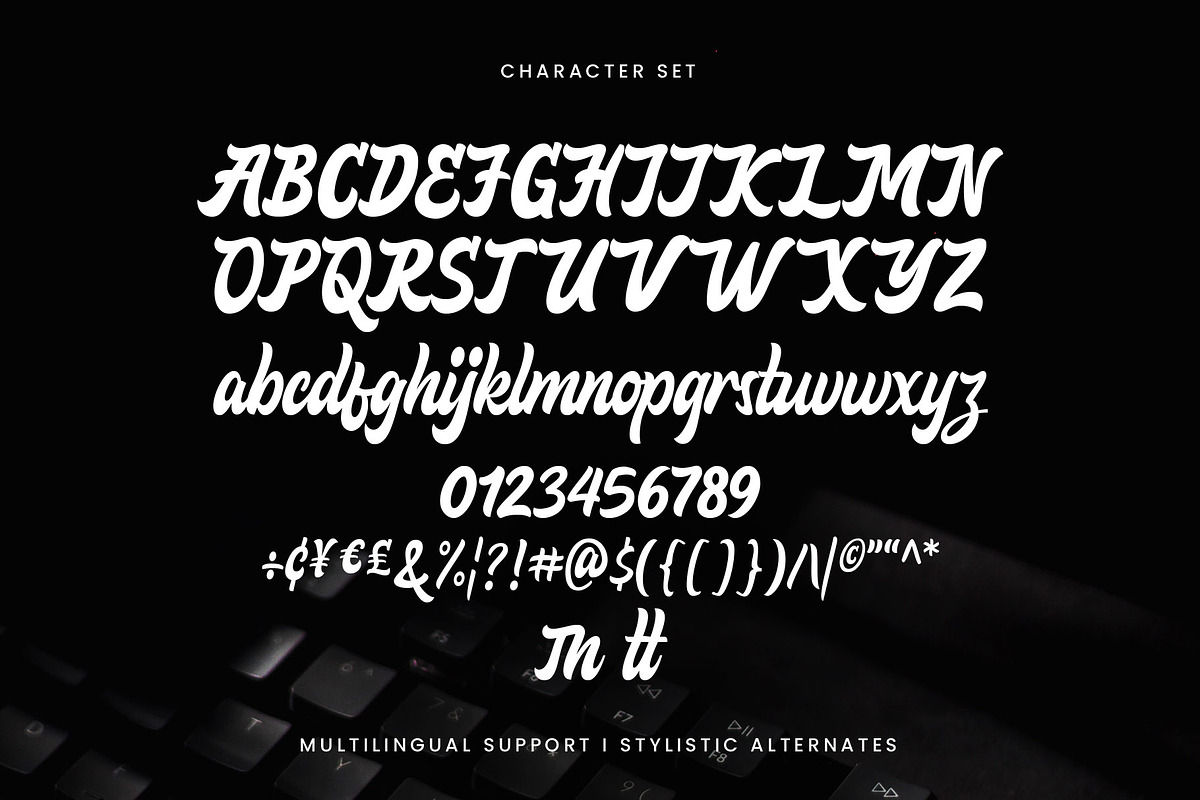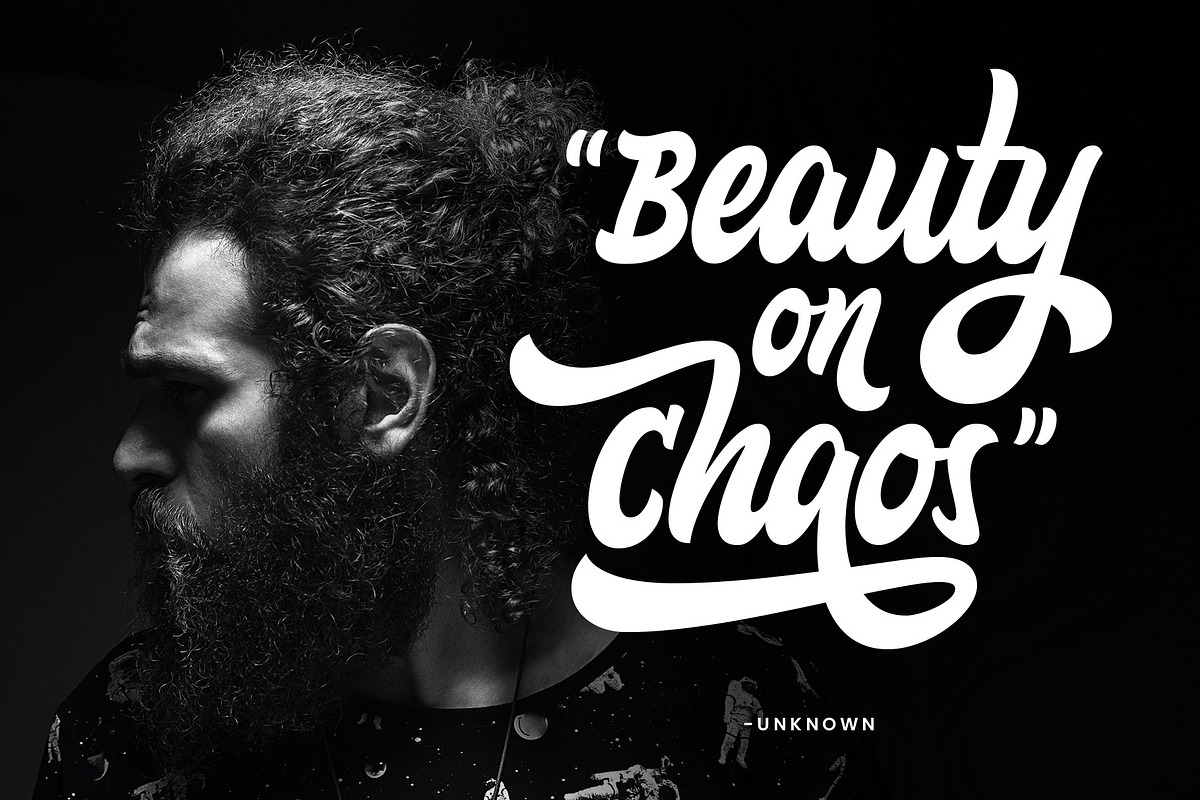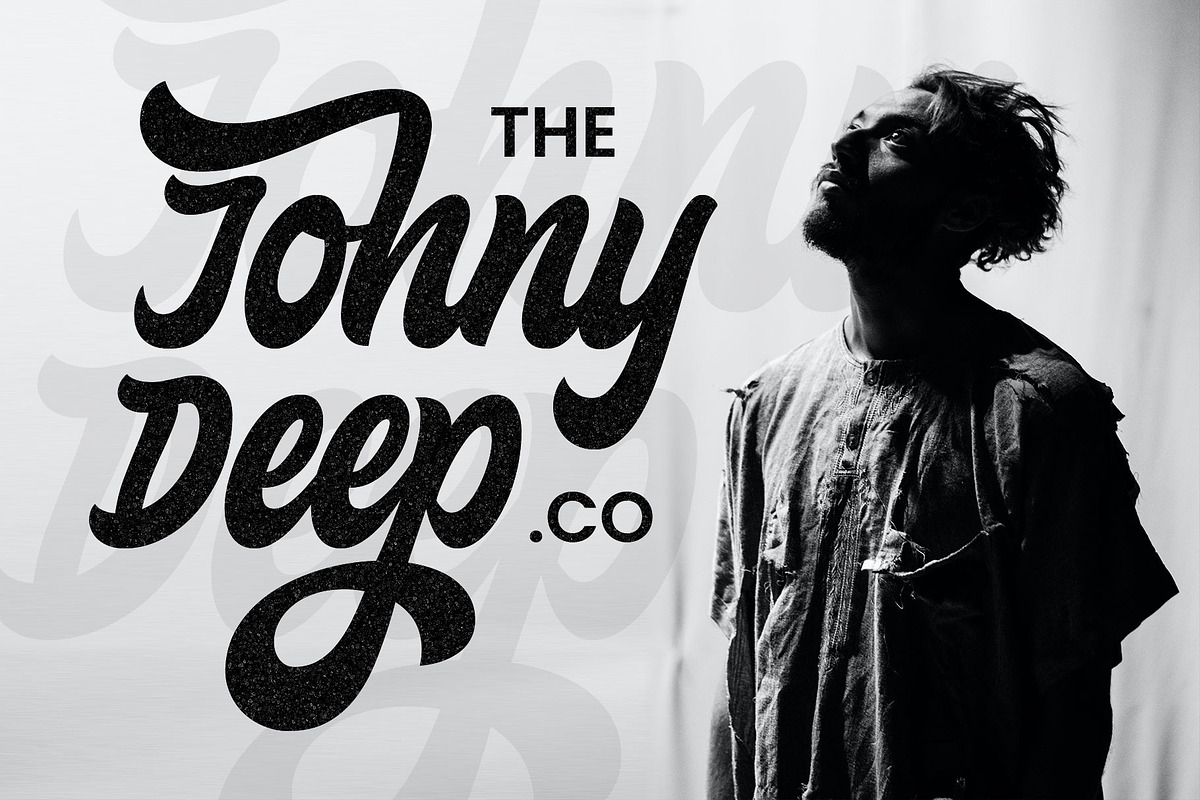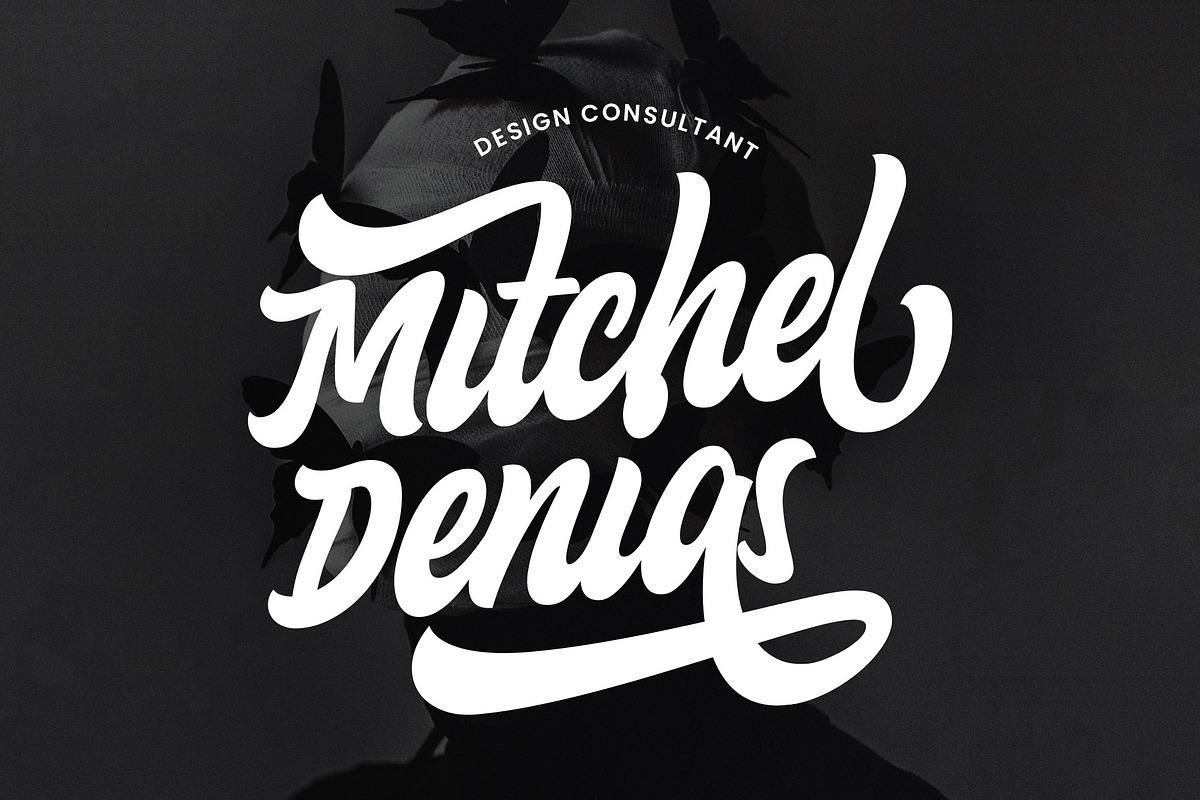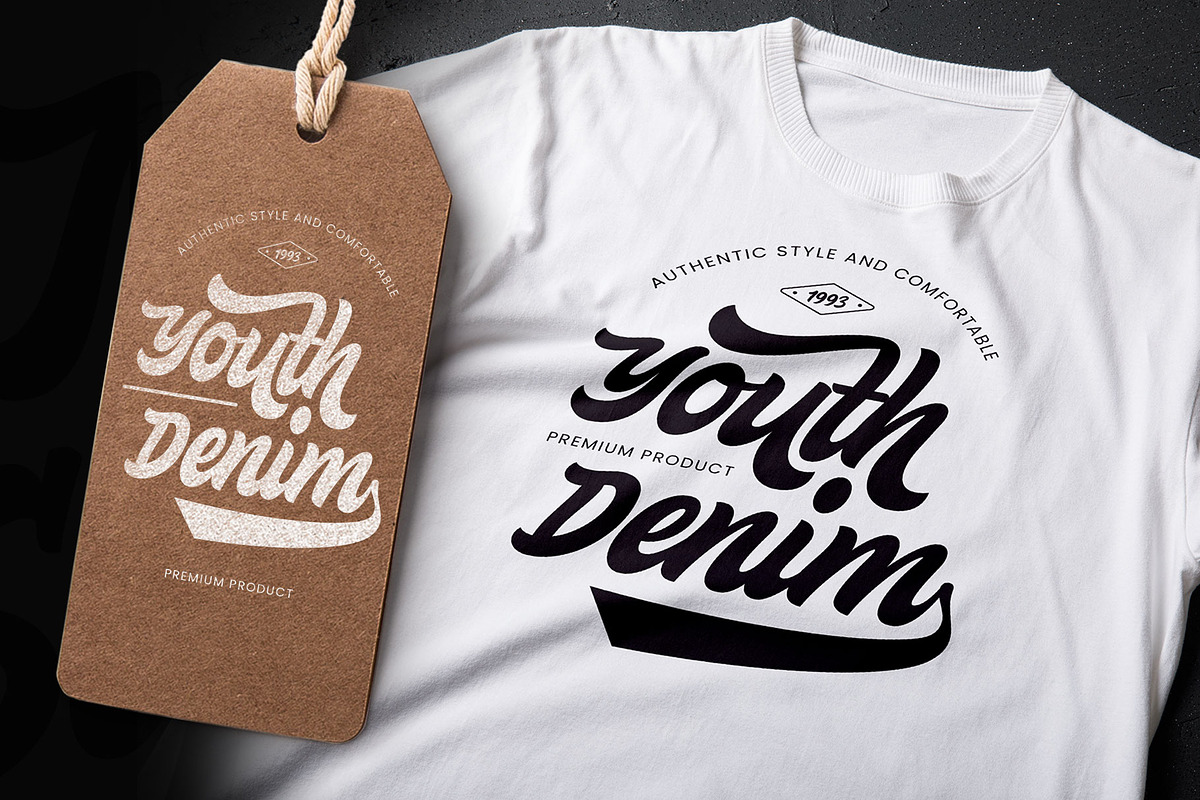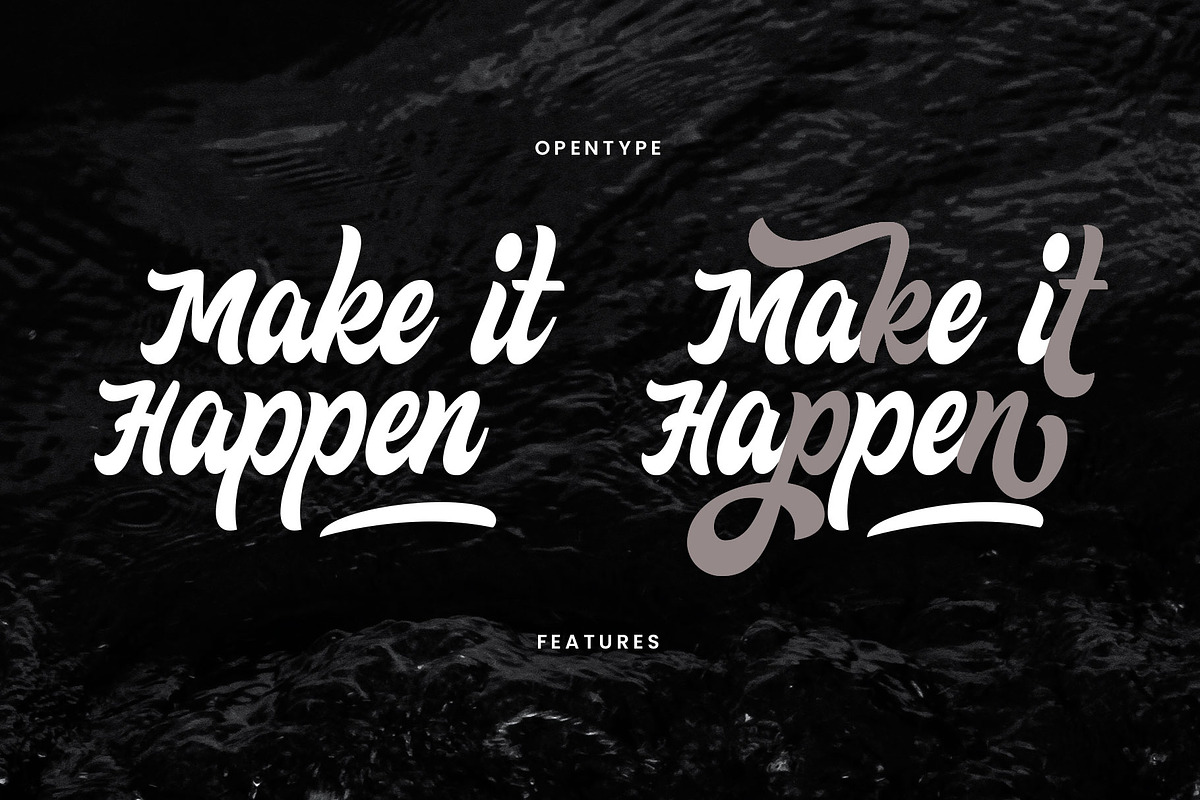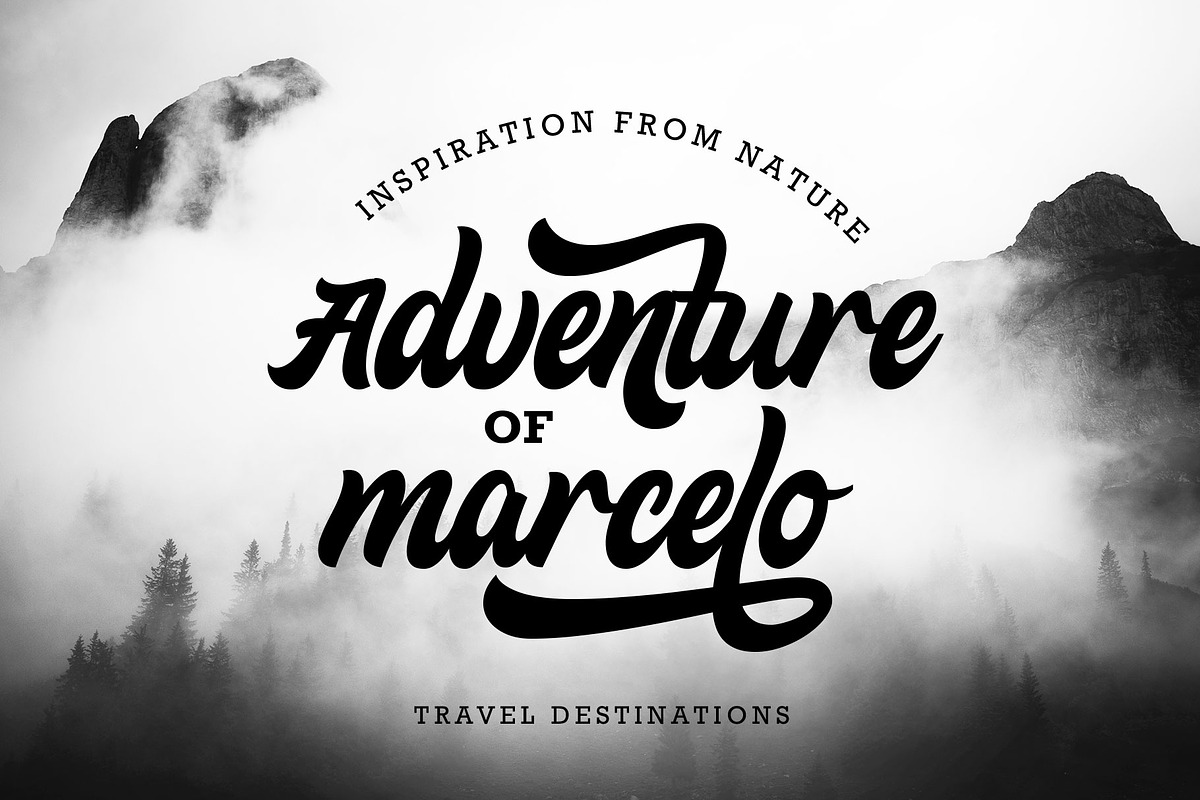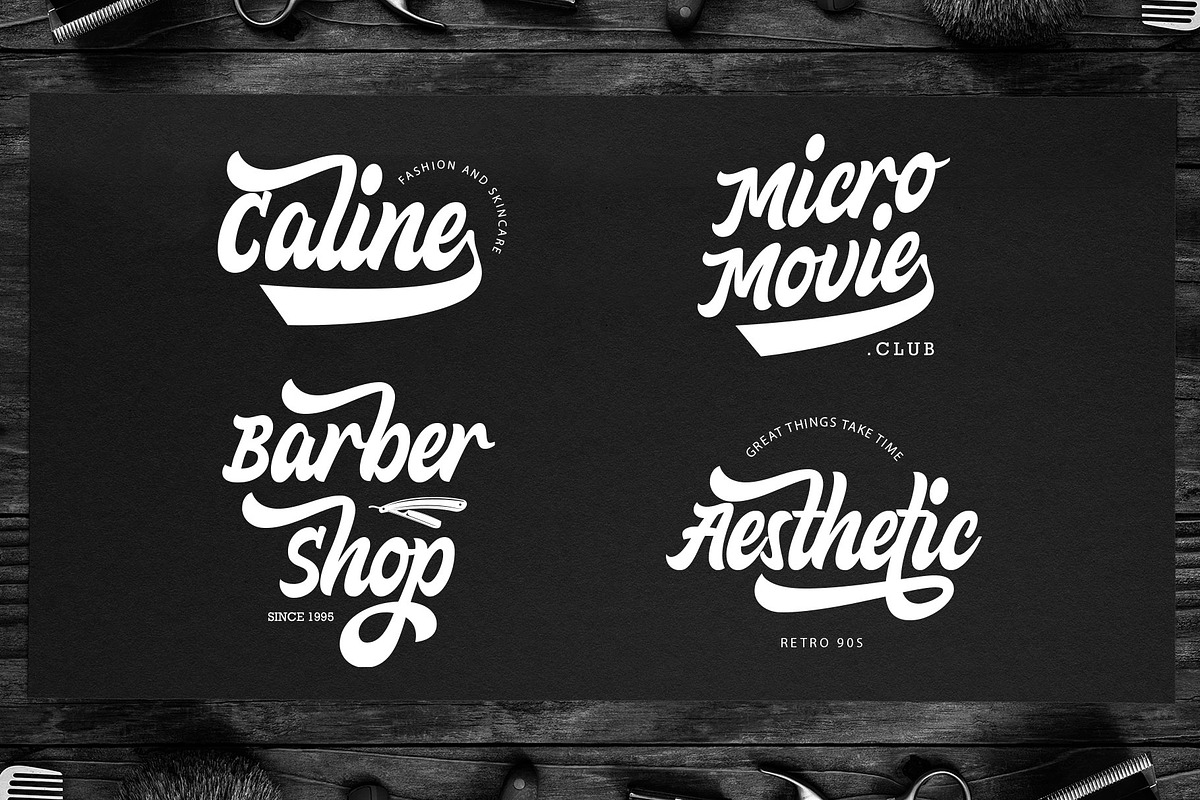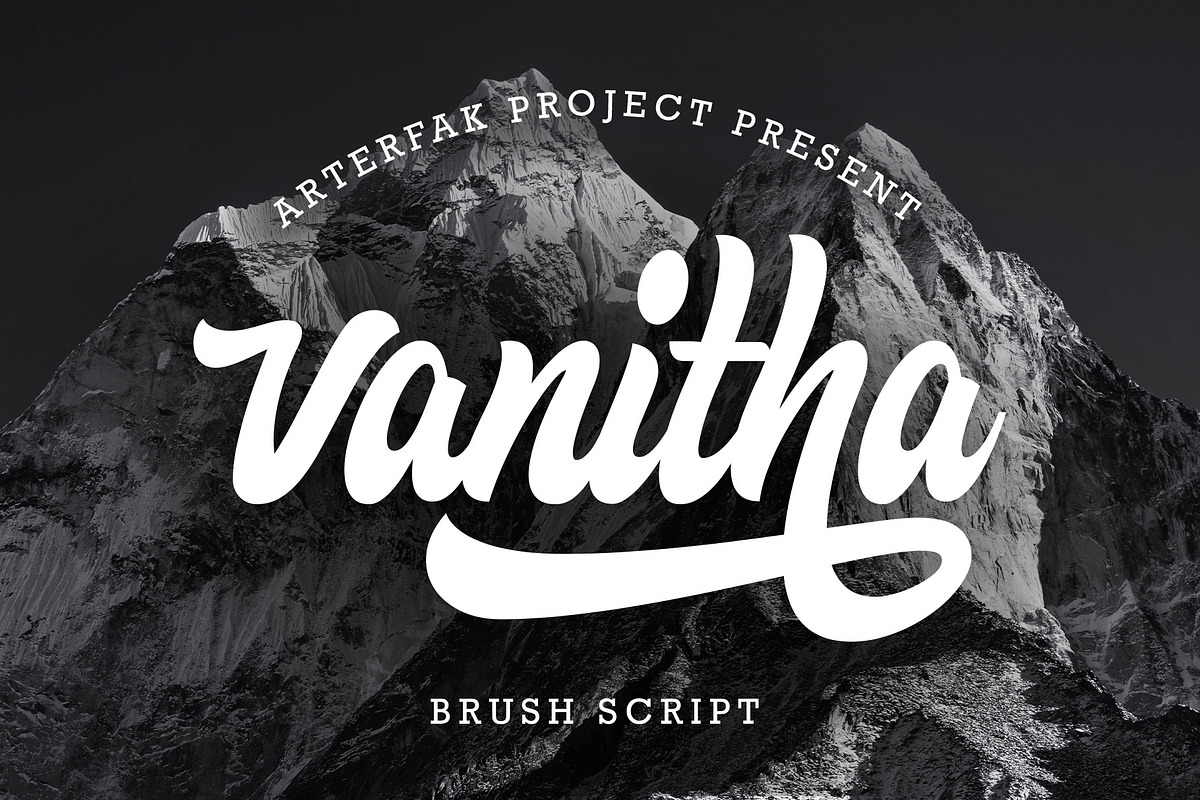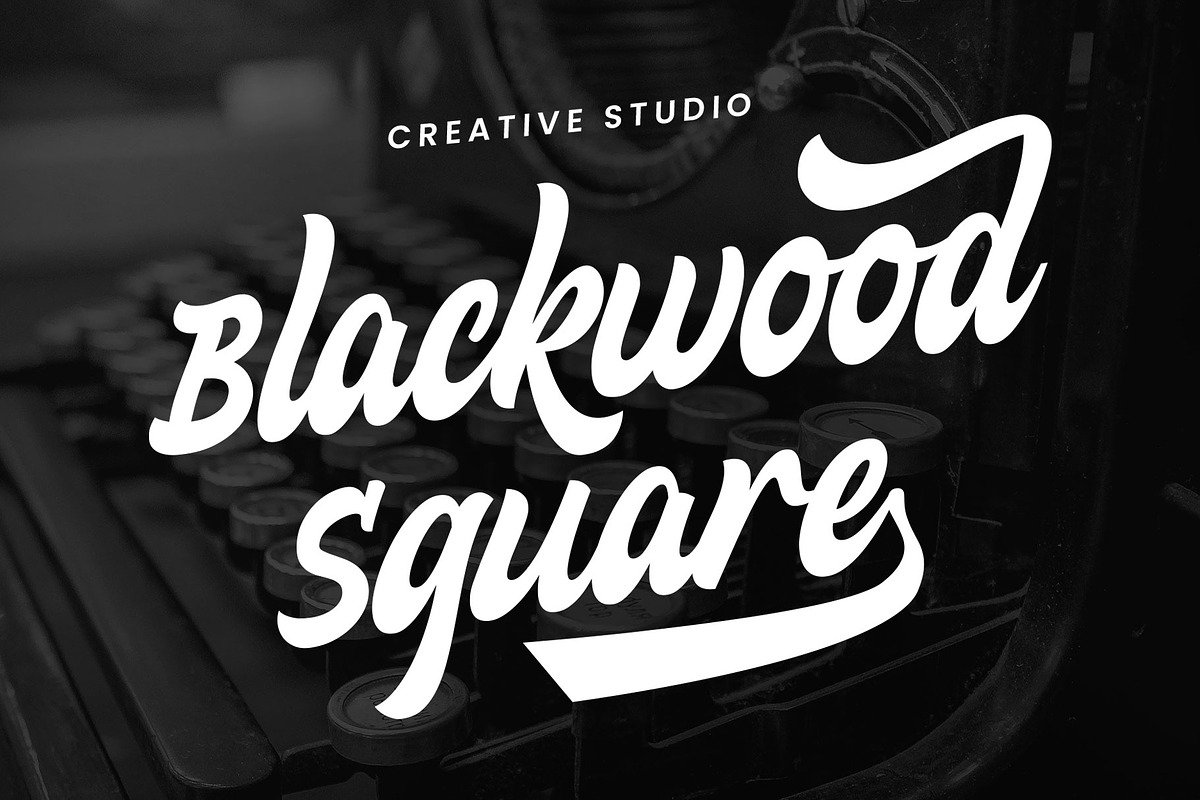
Vanitha
Vanitha is a bold script font, inspired by vintage logos and old-school sign painting. This font is made with hand drawings and still pays attention to the calligraphic form so that it looks modern and unique.
Vanitha is a display font, which you can use as logos, logotypes, merchandise, sports themes, flags, banners, stickers, labels, posters, and others. This font is also equipped with stylistic alternates to beautify your typographic design.